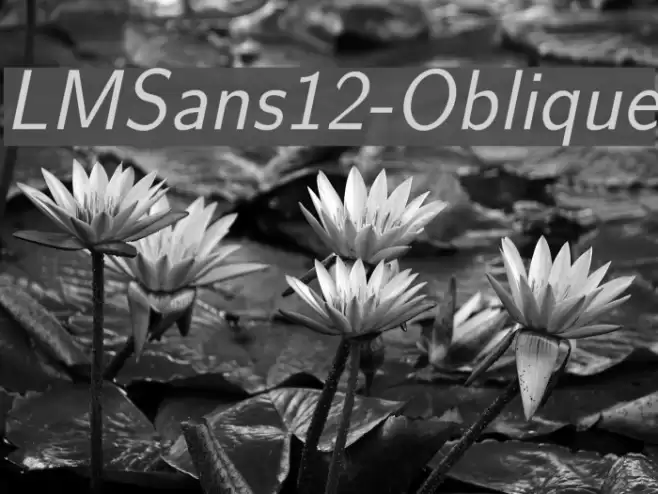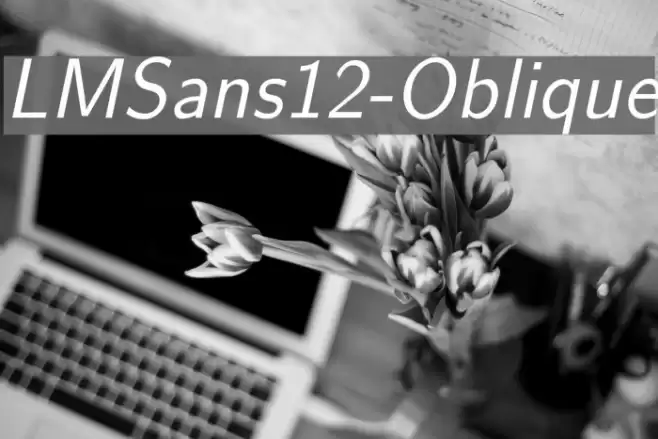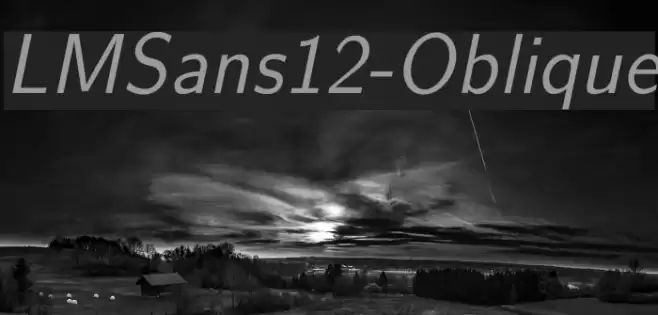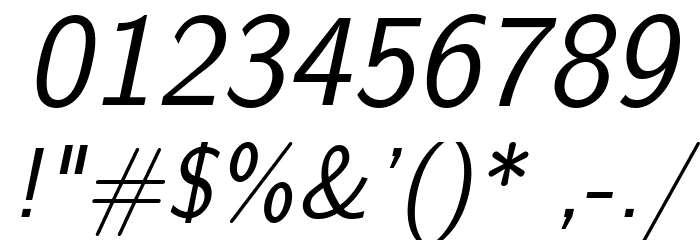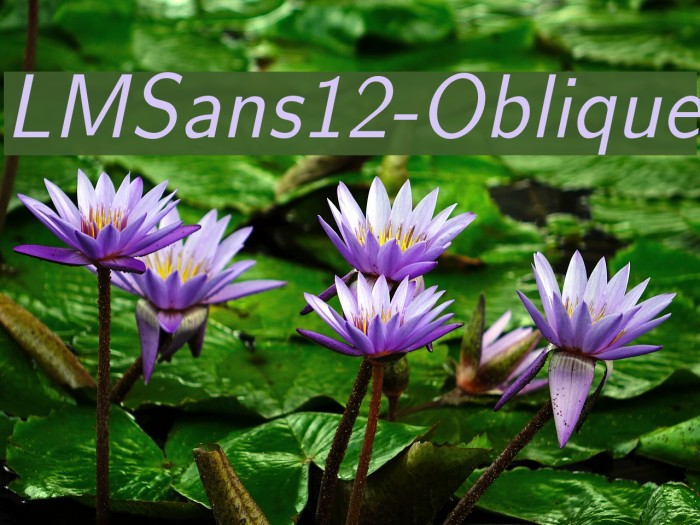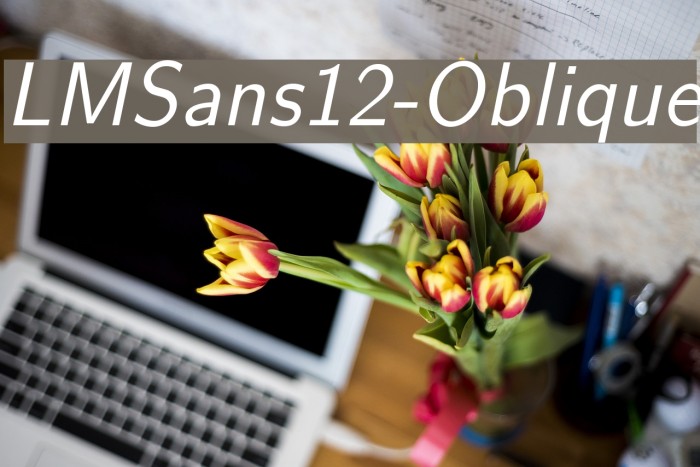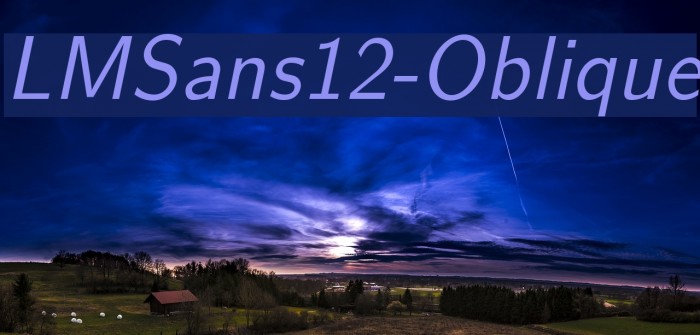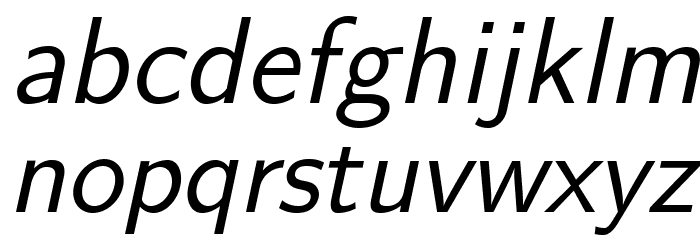
LMSans12-Oblique Font
LMSans12-Oblique Description
This font features a sleek, modern sans-serif design with an oblique style, giving it a dynamic and forward-leaning appearance. The characters are clean and well-defined, with a consistent stroke width that maintains readability across various sizes. The uppercase and lowercase letters are proportionate, and the numerals are clear and distinct. Special characters are included, enhancing its versatility for different types of content. The overall design is minimalistic yet sophisticated, making it suitable for contemporary applications.
A modern, oblique sans-serif font with clean lines and a sleek appearance from Uncategorized fonts.
- Proposed Projects: Ideal for branding, advertising, digital content, and modern web design projects.